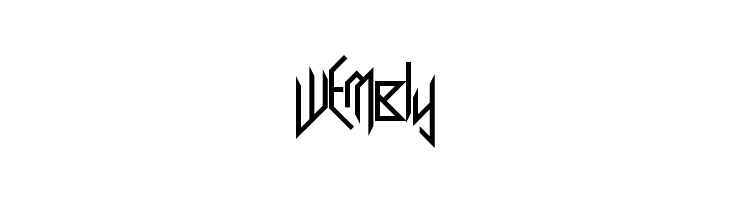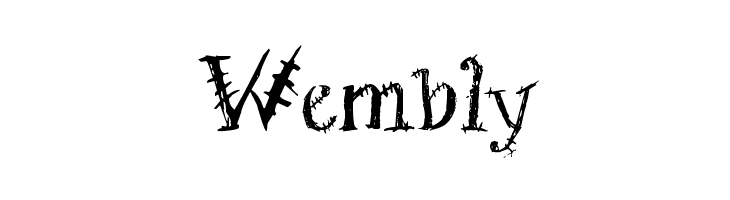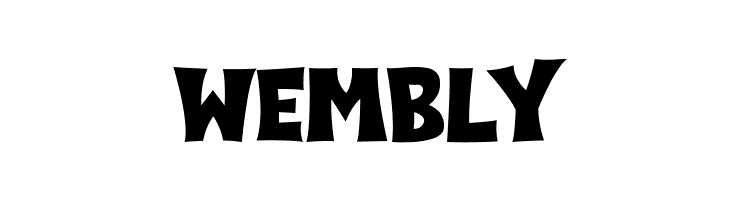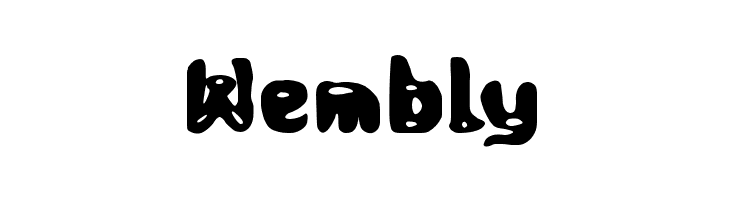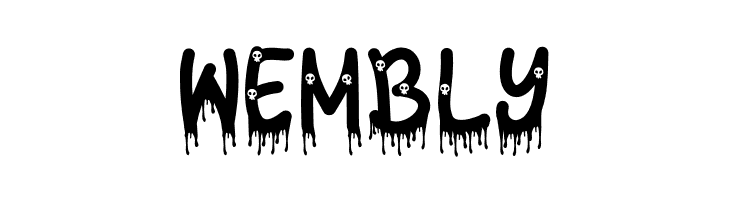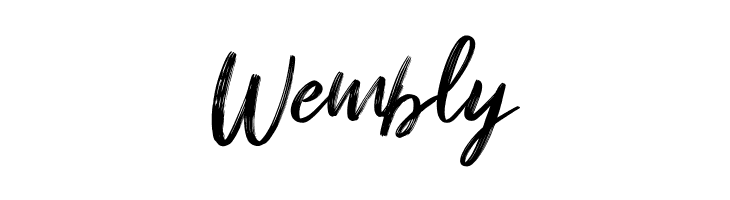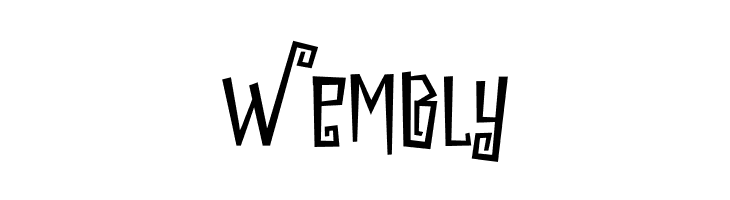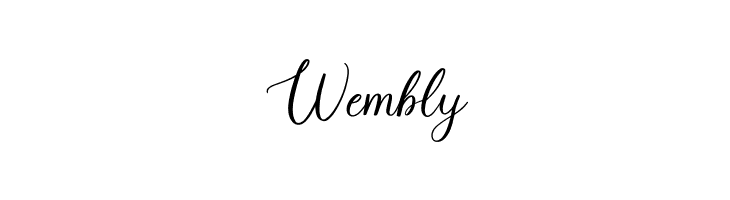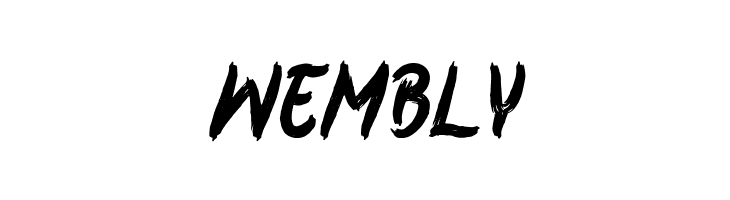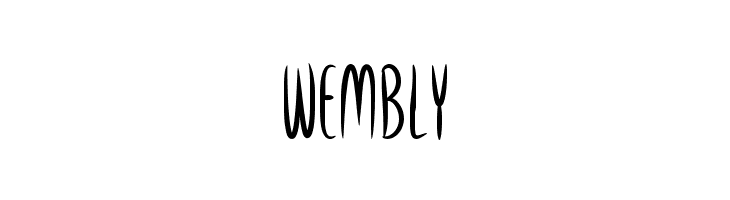
Scarlet Josephine Font
A playful, bold font with rounded strokes and a hand-drawn feel.
Scarlet_River_Font Regular Font
A bold, geometric font with sharp angles and a modern, edgy style.
Scarlett Font
A handwritten, casual script font with a playful and informal style.
Scarlett Busiat_Demo Font
A dynamic and expressive handwritten font with fluid strokes and elegant style.
Scarlett Display DEMO Font
A bold, serif font with strong strokes and sharp serifs, ideal for impactful designs.
Scarletta Font
An elegant script font with intricate swirls and flowing lines.
scarlette Font
A graceful and elegant handwritten script with smooth, flowing curves.
Scarlette Font
An elegant and flowing script font with smooth, cursive strokes.
ScarletteDEMO Font
A casual, elegant handwritten font with flowing, graceful letterforms.
Scarlettik Font
Casual handwritten font with playful style.
ScarlettScript-Slant Font
A sophisticated, slanted script font with elegant loops and flourishes.
Scarletty Font
A dynamic, expressive script font with fluid, cursive strokes and varying thickness.
Scars Before Christmas Font
An edgy, distressed font with thorny, jagged edges.
Scars Regular Font
A bold, angular font with a modern blackletter style.
Scartan Floaben Font
A bold, decorative font with a unique checkered pattern.
Scarville Free Font
A playful, spiral-themed font with bold, angular characters.
Scary Font
A Halloween-themed decorative font with playful and spooky elements.
Scary Party Font
A bold, playful font with a spooky, hand-drawn style.
SCARY And SPICY Font
A bold, playful font with exaggerated strokes and quirky angles.